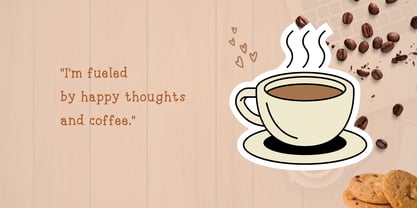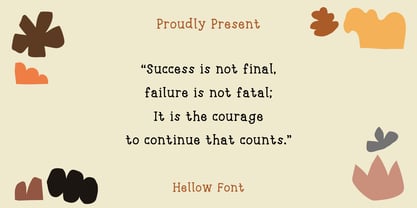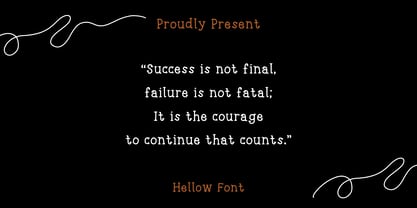
Hellow
by Sidkia Fonts
The Hellow Font Family was designed by and published by Sidkia Fonts. Hellow contains 1 styles. More about this family
Hellow Font is a playful handwritten typeface with a soft, rounded look. Its casual style and friendly spacing make it perfect for quotes, kids’ books, posters, and creative projects that need a personal touch.